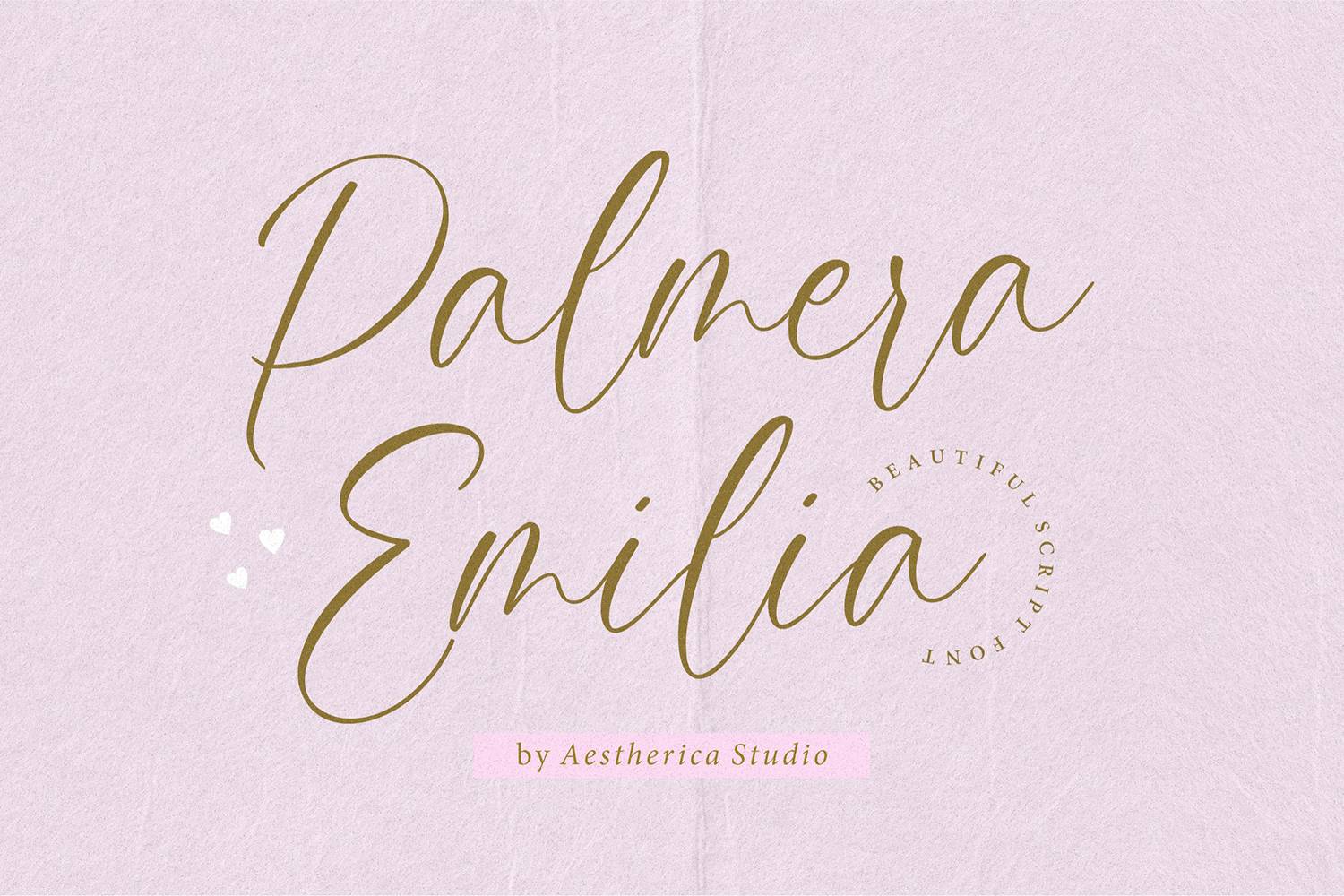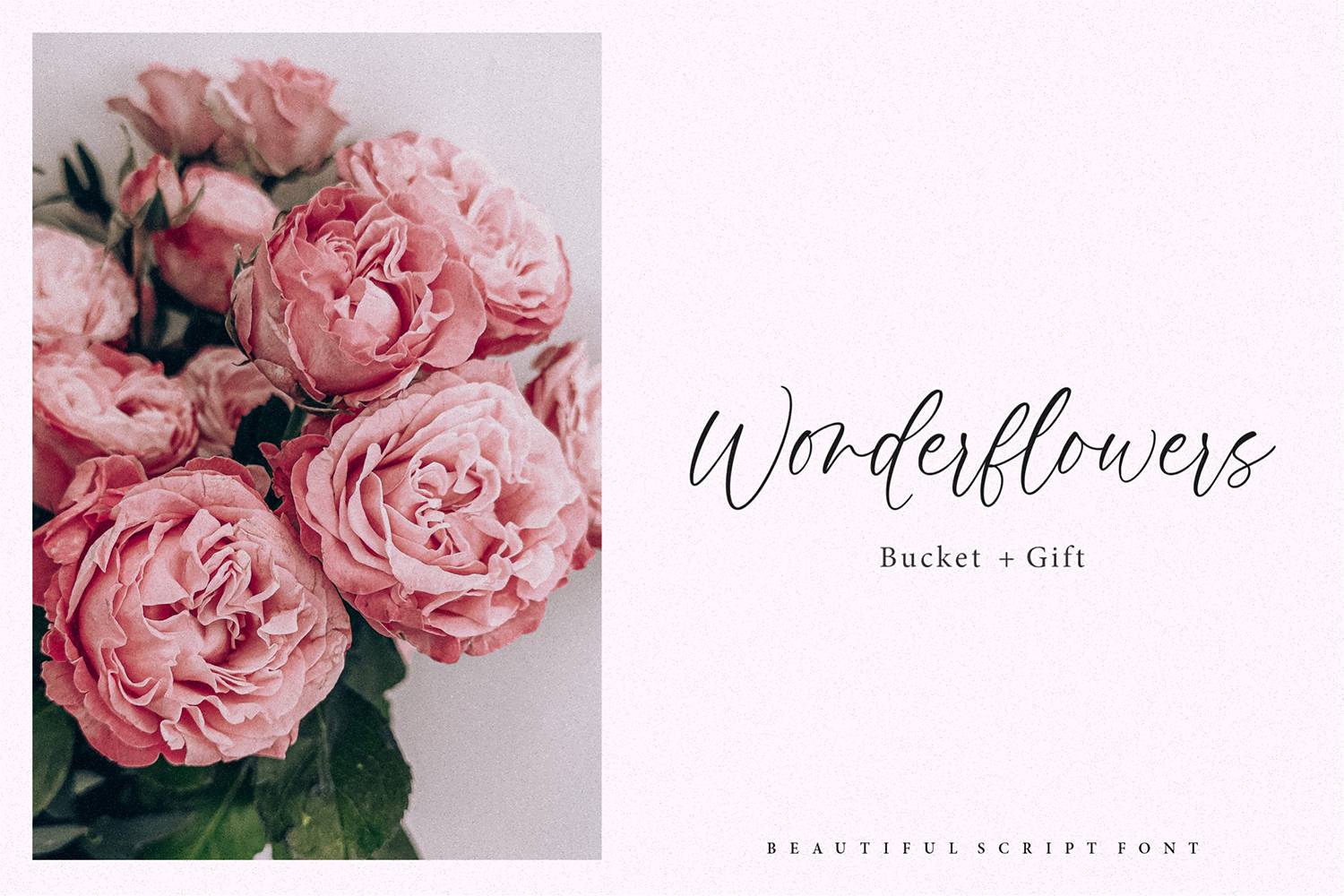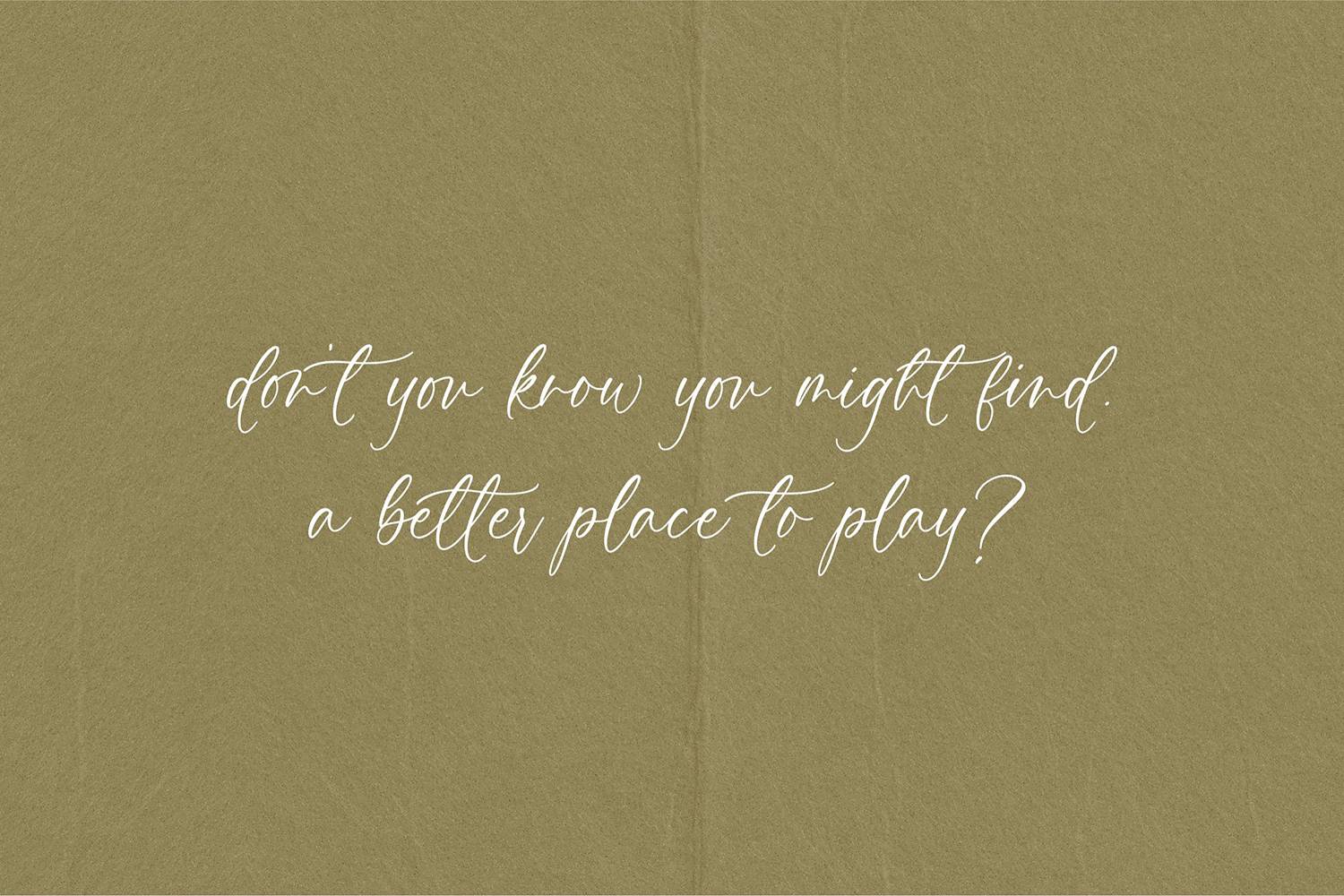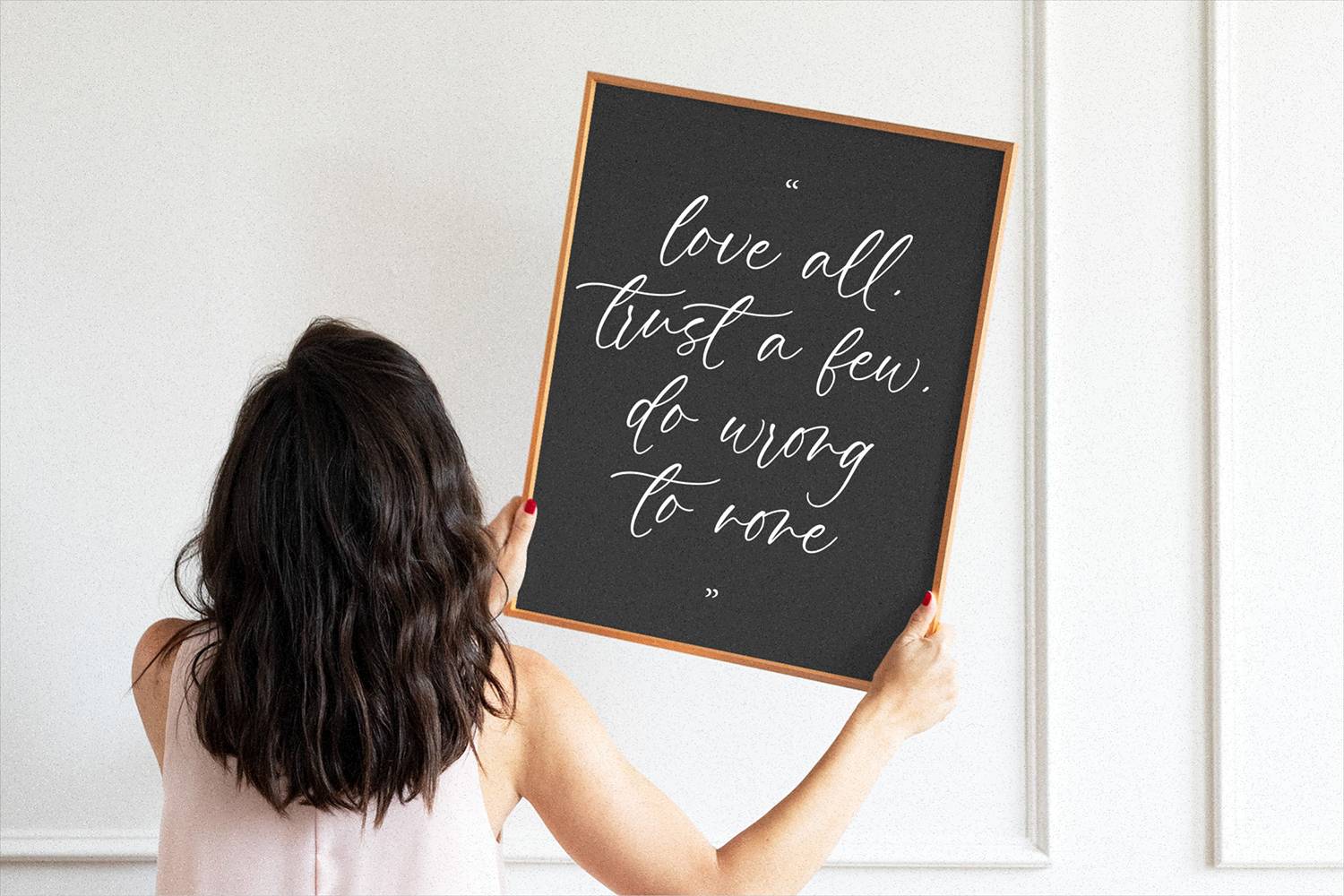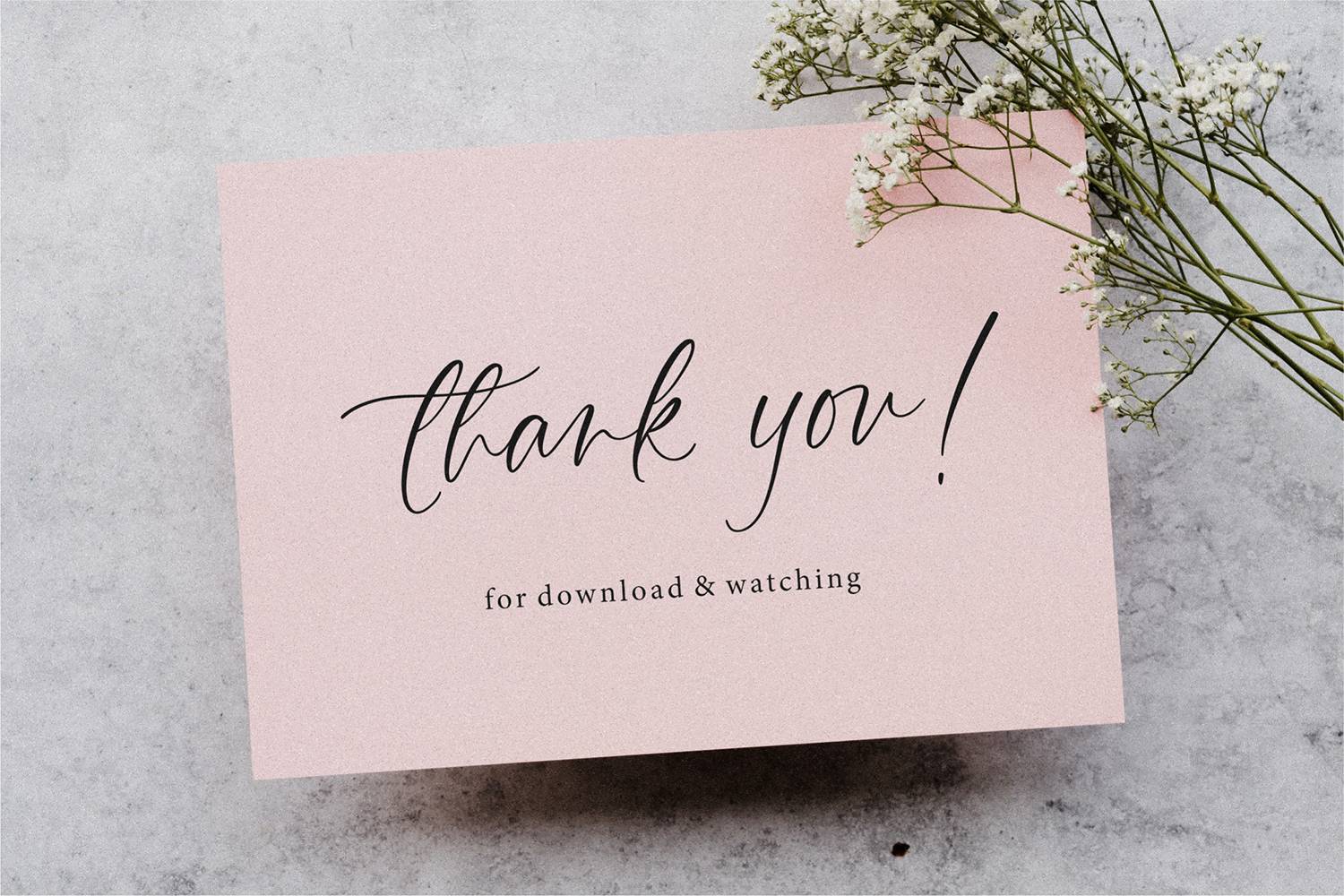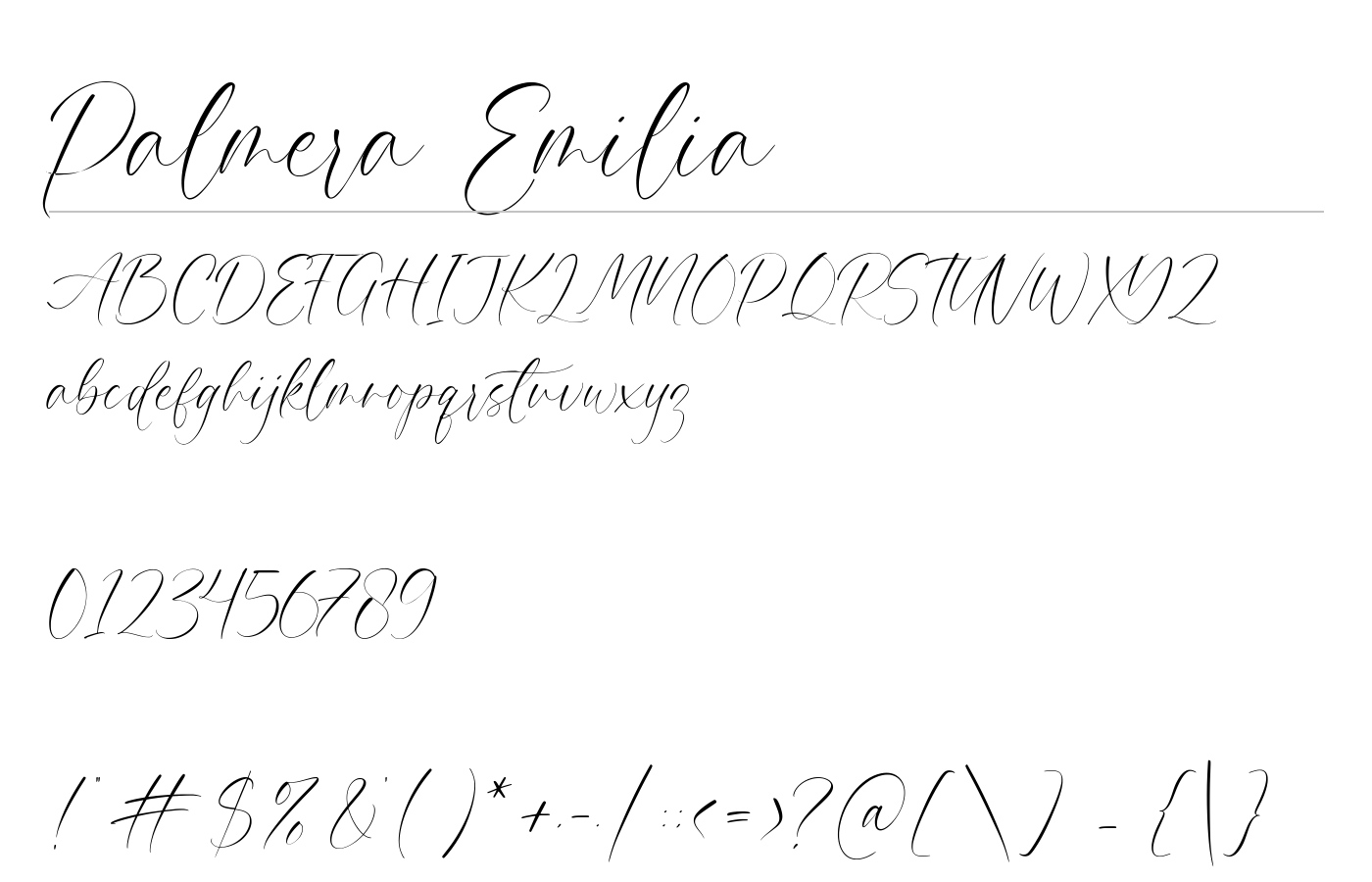
Palmera Emilia is a delicate, elegant script font featuring thin, flowing strokes with a graceful, handwritten feel. Its light weight and airy letterforms give it a sophisticated and romantic personality, making it ideal for wedding invitations, luxury branding, and feminine editorial designs. This font works best in display uses where its refined style can shine, adding a touch of charm and elegance to any project.
Palmera Emilia Font
About Palmera Emilia Font